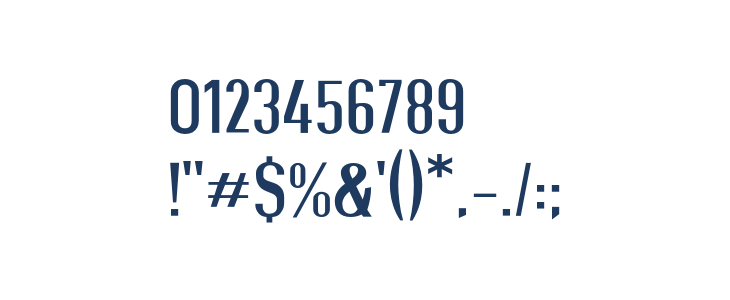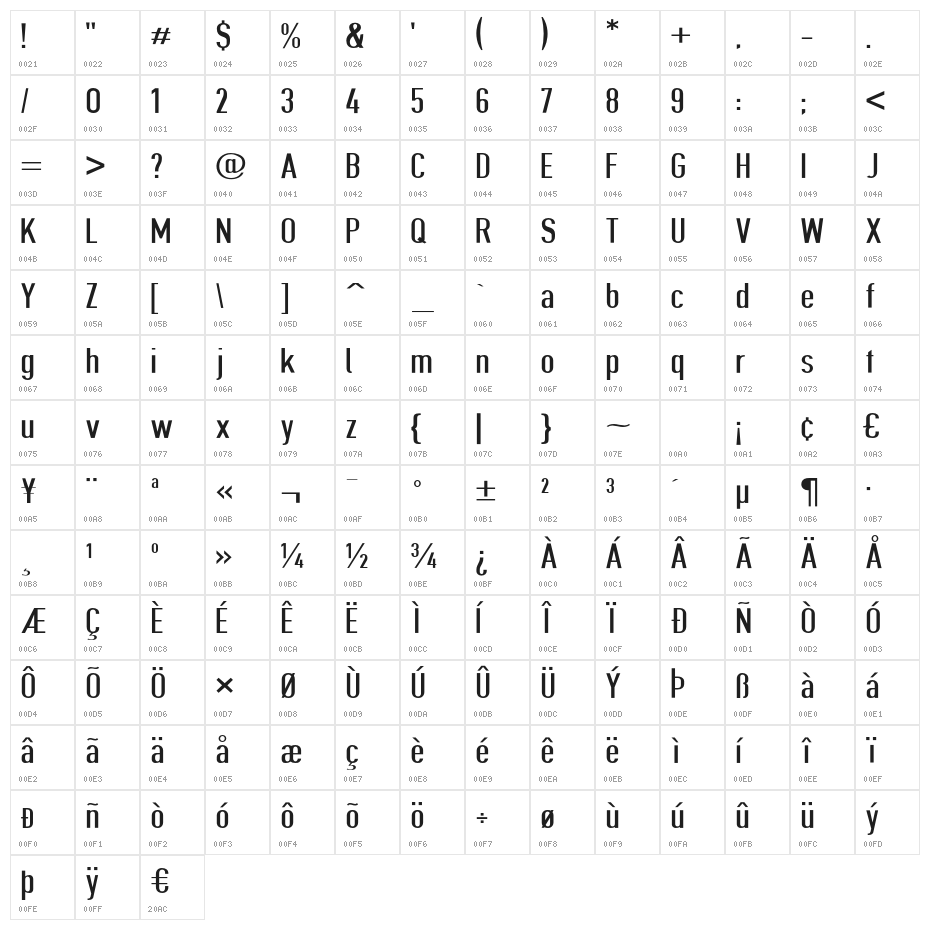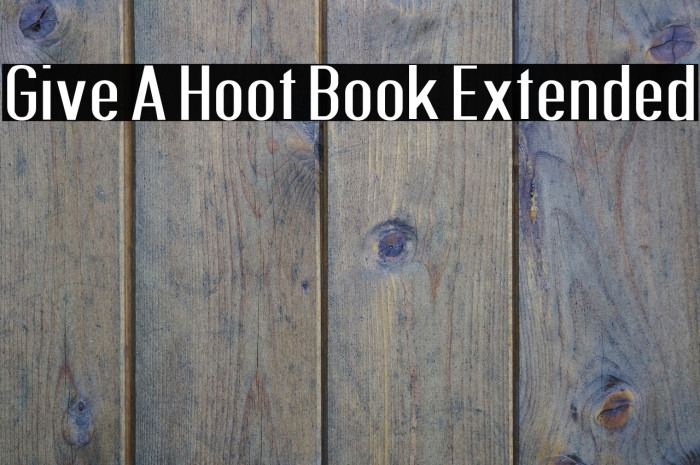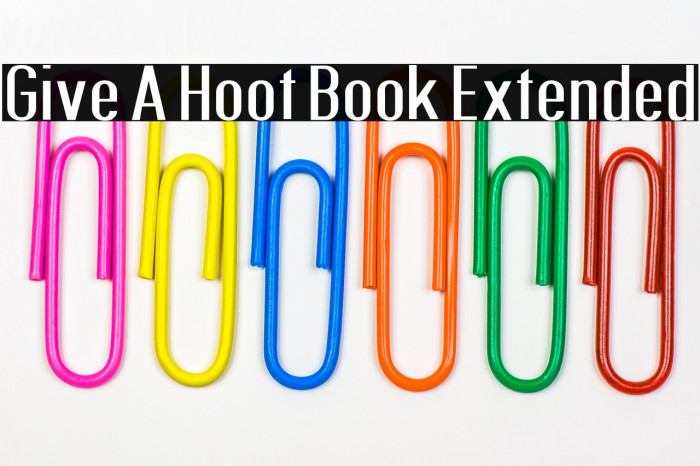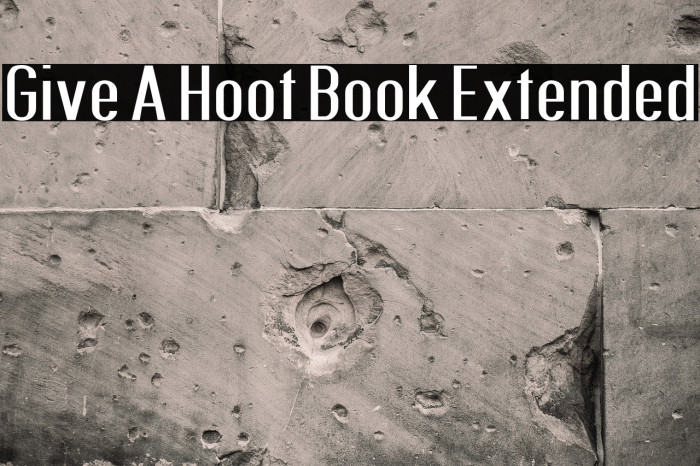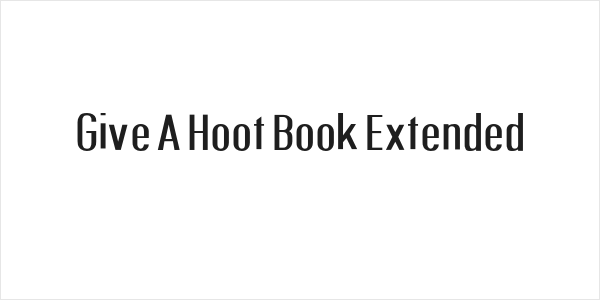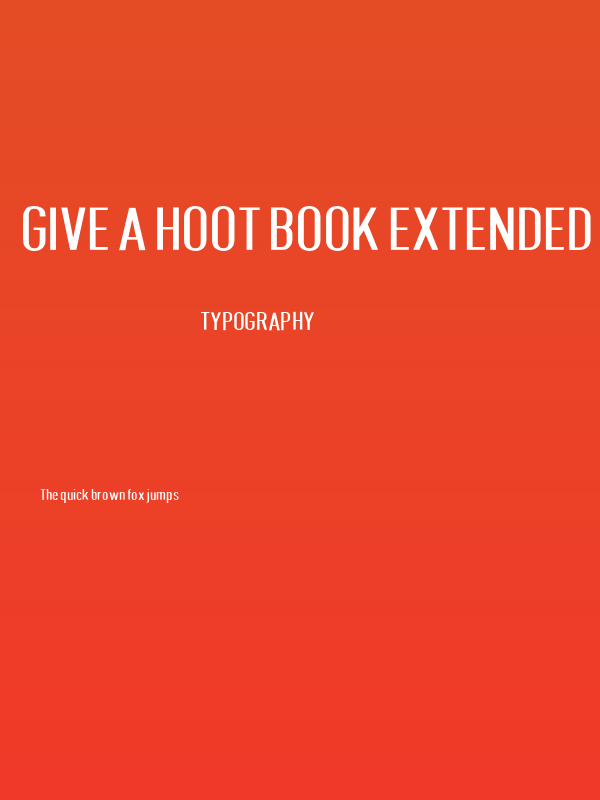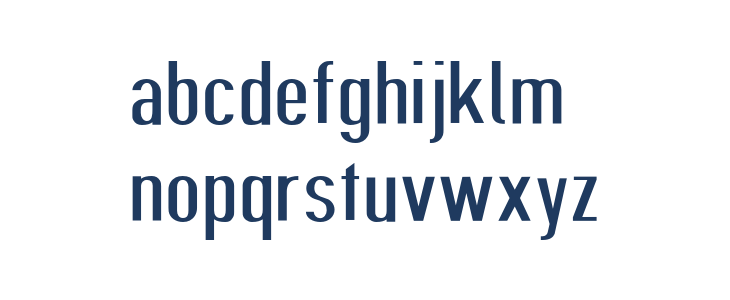
Give A Hoot Book Extended Font
Give A Hoot Book Extended Description
This typeface features a clean and modern sans-serif design with a slightly condensed structure, offering a sleek and professional appearance. The uppercase letters are bold and assertive, while the lowercase letters maintain a consistent and harmonious flow. The numerals are clear and easy to read, making them suitable for various applications. Special characters are well-defined, adding versatility to the font. The overall style is contemporary, making it ideal for digital and print media.
| Proposed Projects | Ideal for branding, advertising, web design, and editorial projects where a modern and clean aesthetic is desired. |